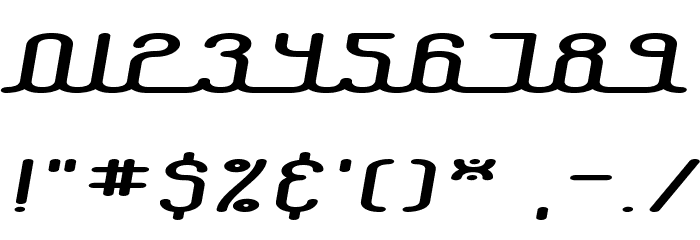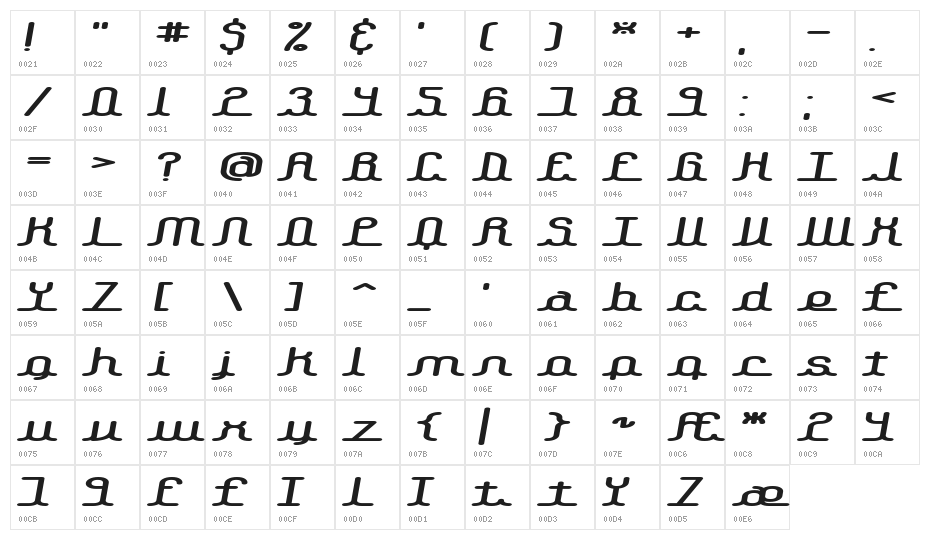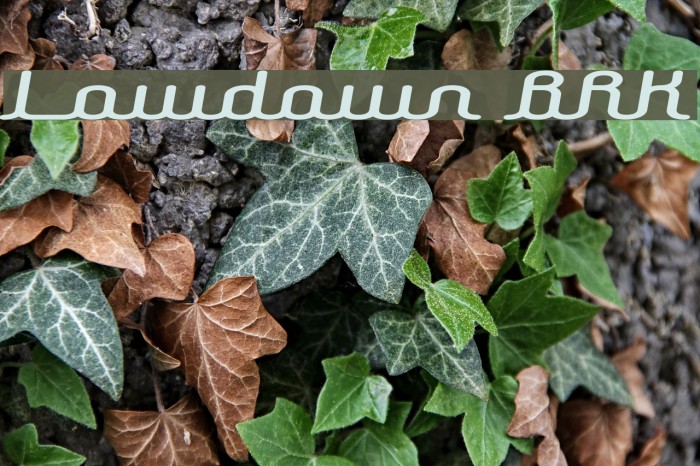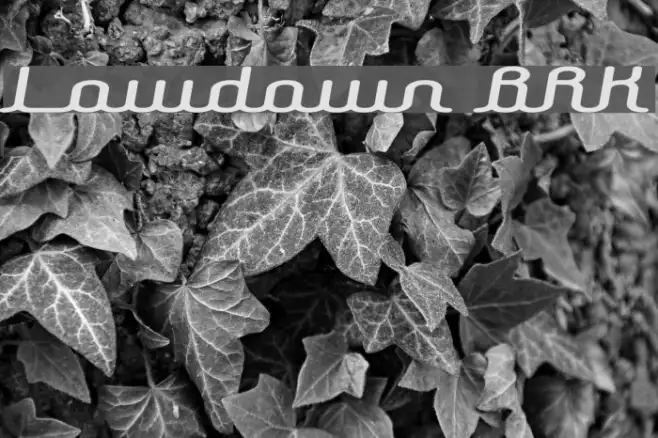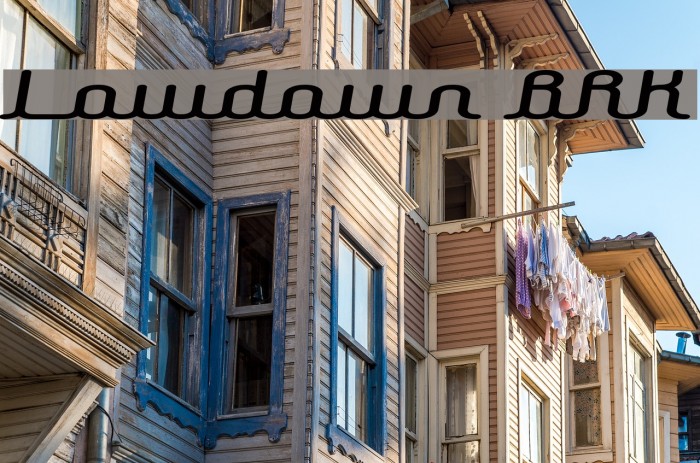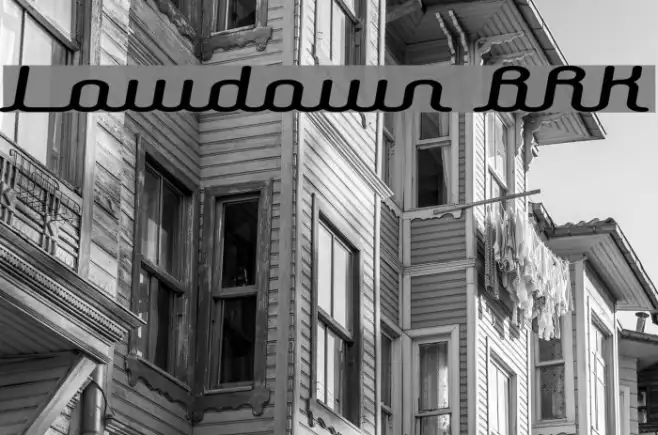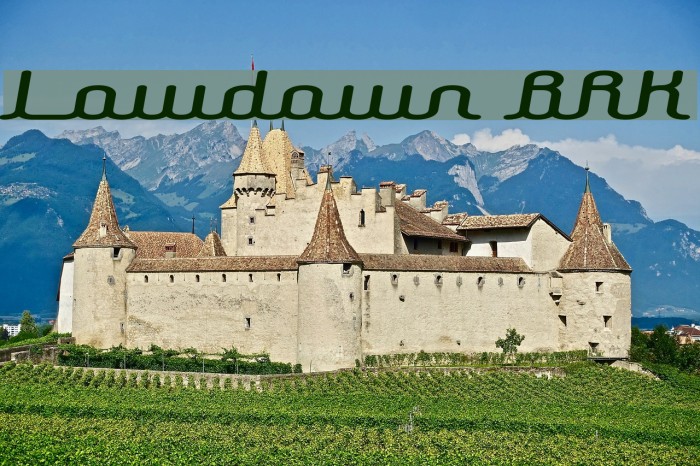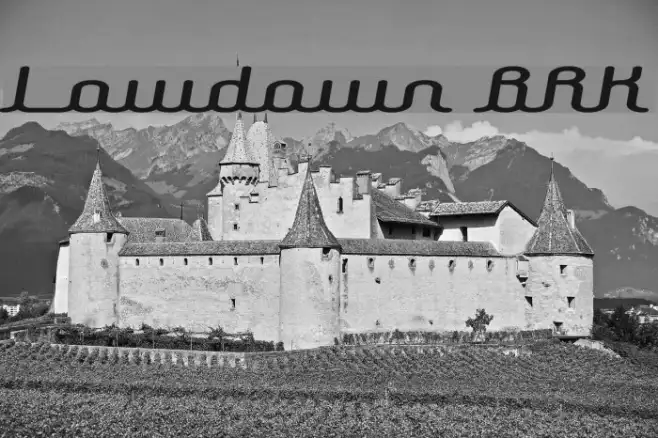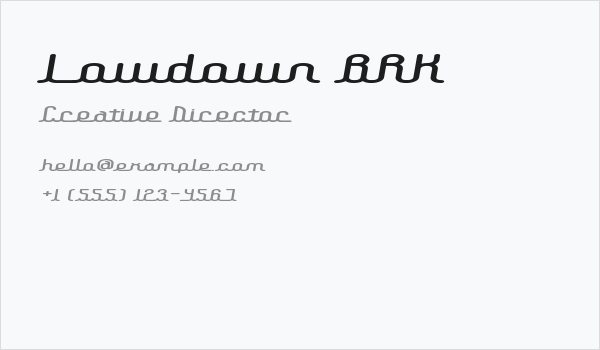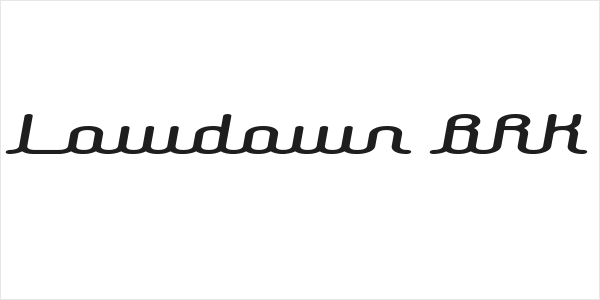
Lowdown BRK Font
Lowdown BRK Description
This font features a unique, continuous line style that gives it a playful and modern appearance. The characters are interconnected, creating a fluid and cohesive look. The uppercase and lowercase letters maintain a consistent height, contributing to a uniform aesthetic. The numbers and special characters follow the same design principles, ensuring a harmonious overall appearance. The font's rounded edges and smooth curves add a friendly and approachable feel, making it suitable for creative and informal projects.
| Proposed Projects | Ideal for creative projects such as posters, logos, and branding materials where a modern and playful touch is desired. |